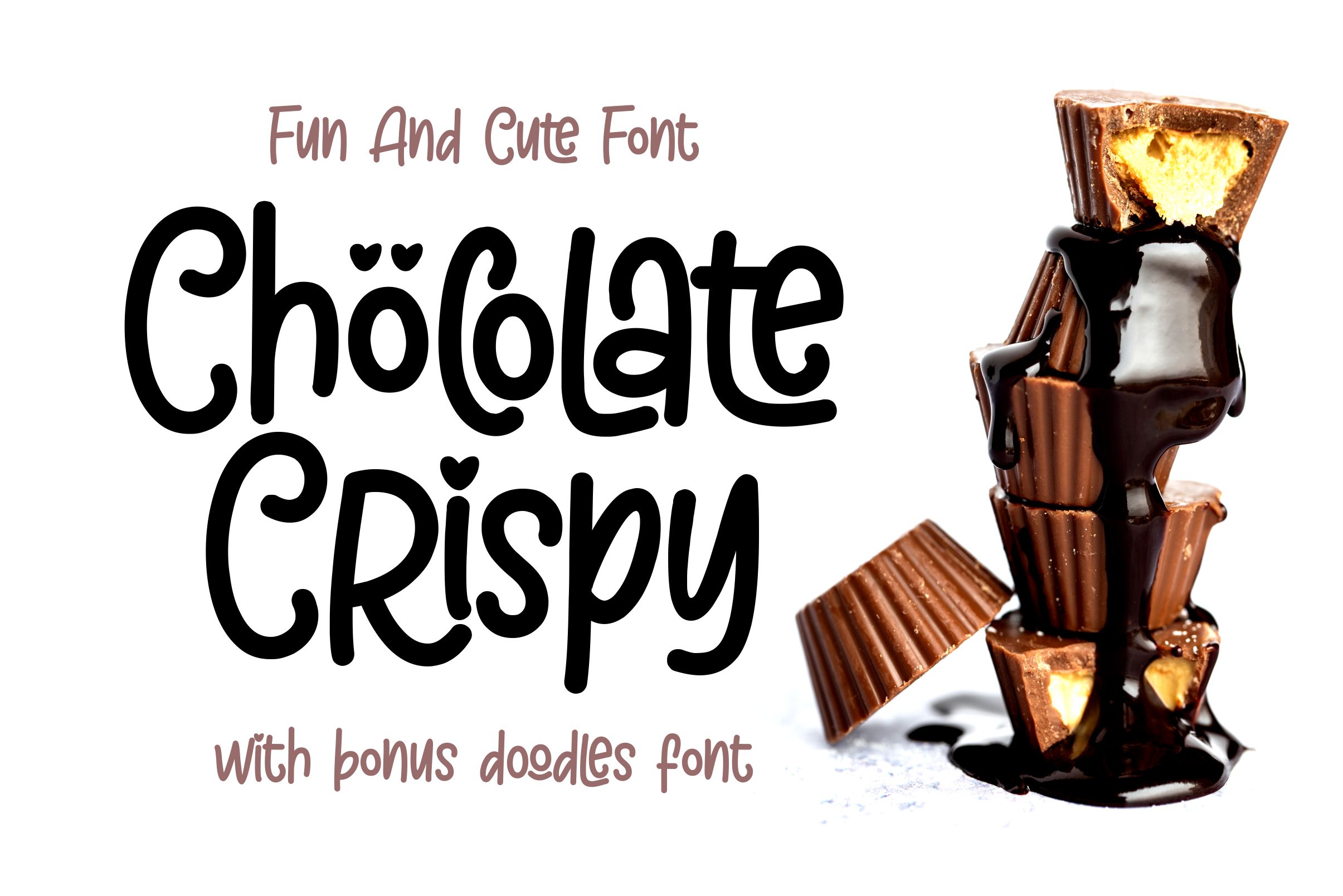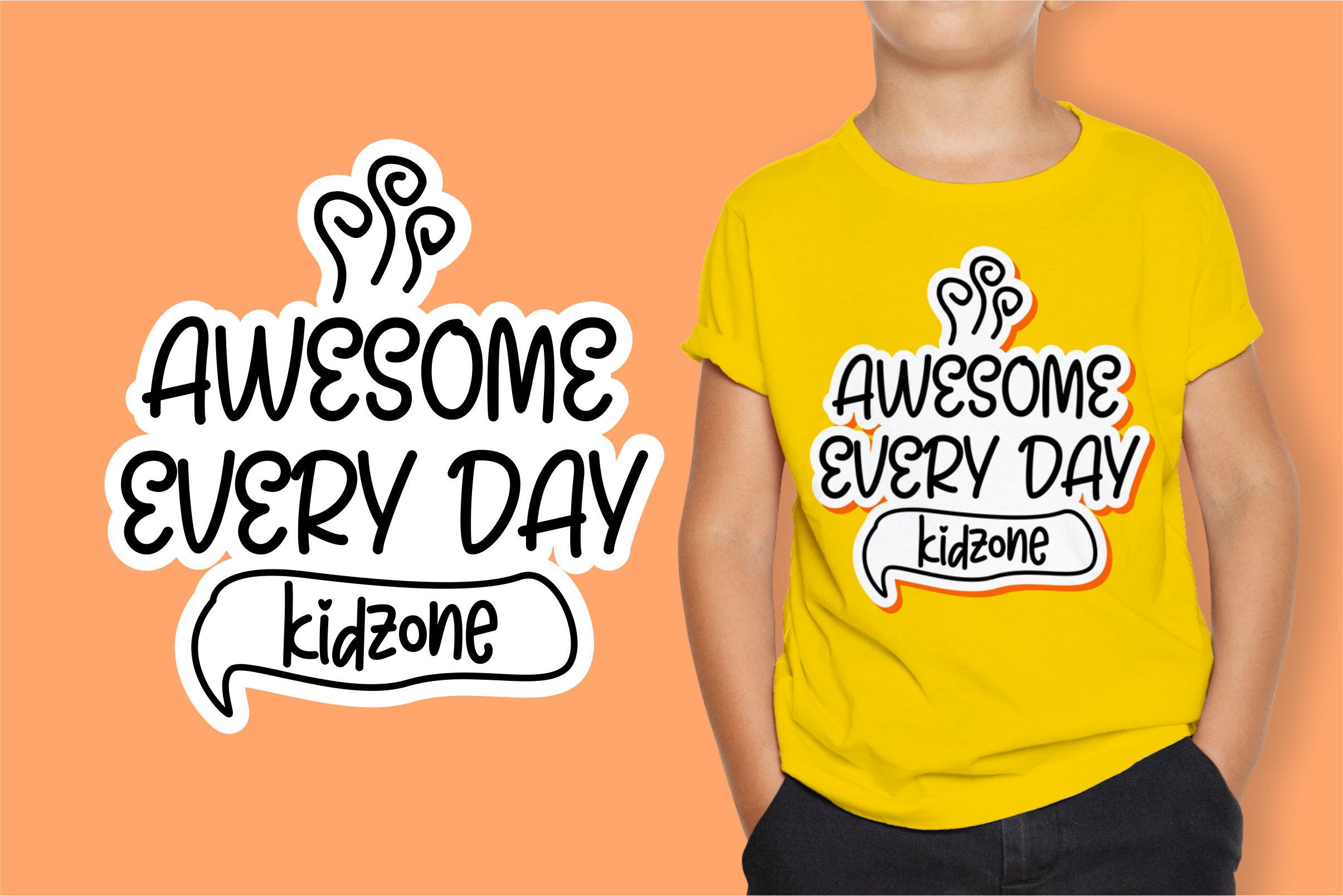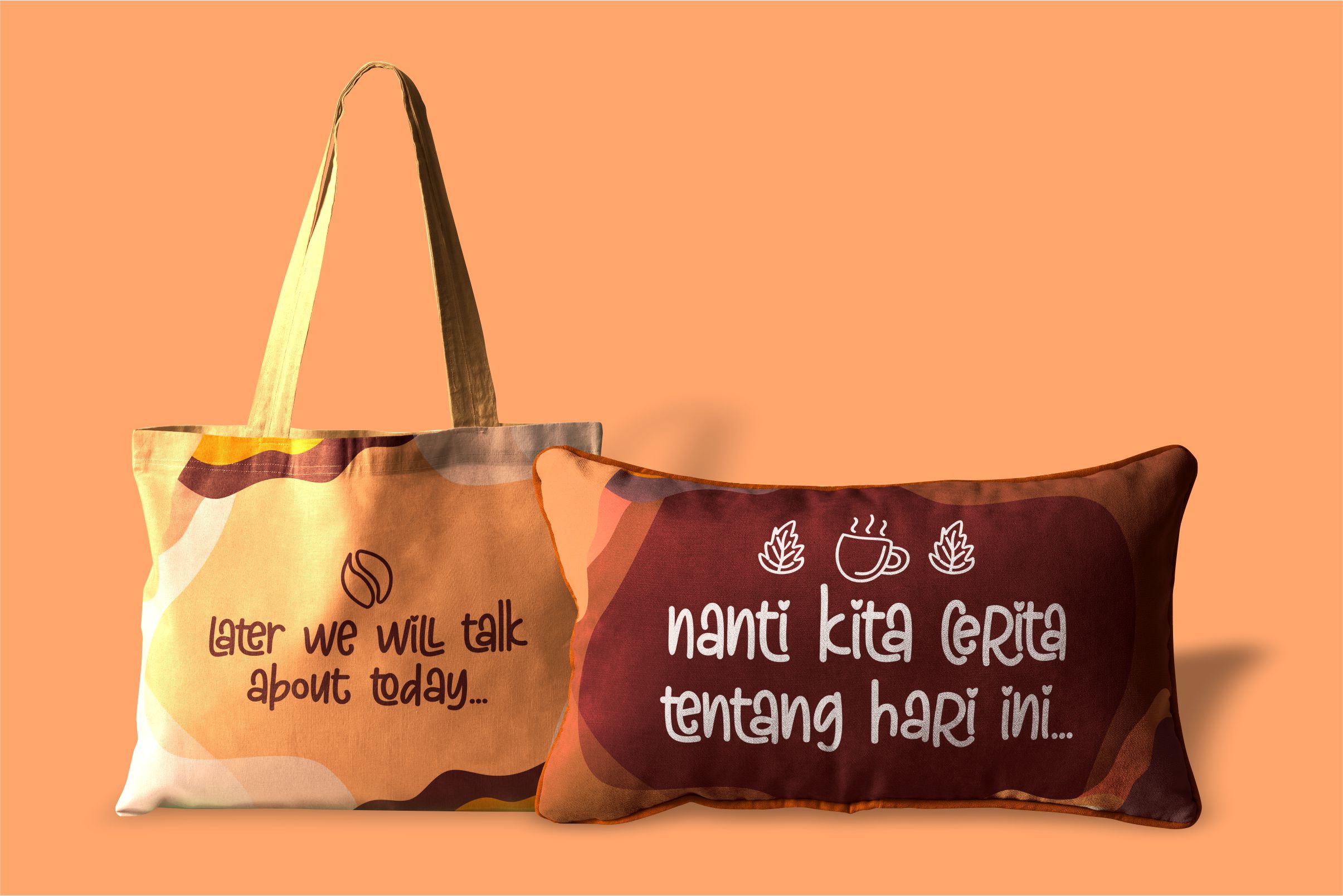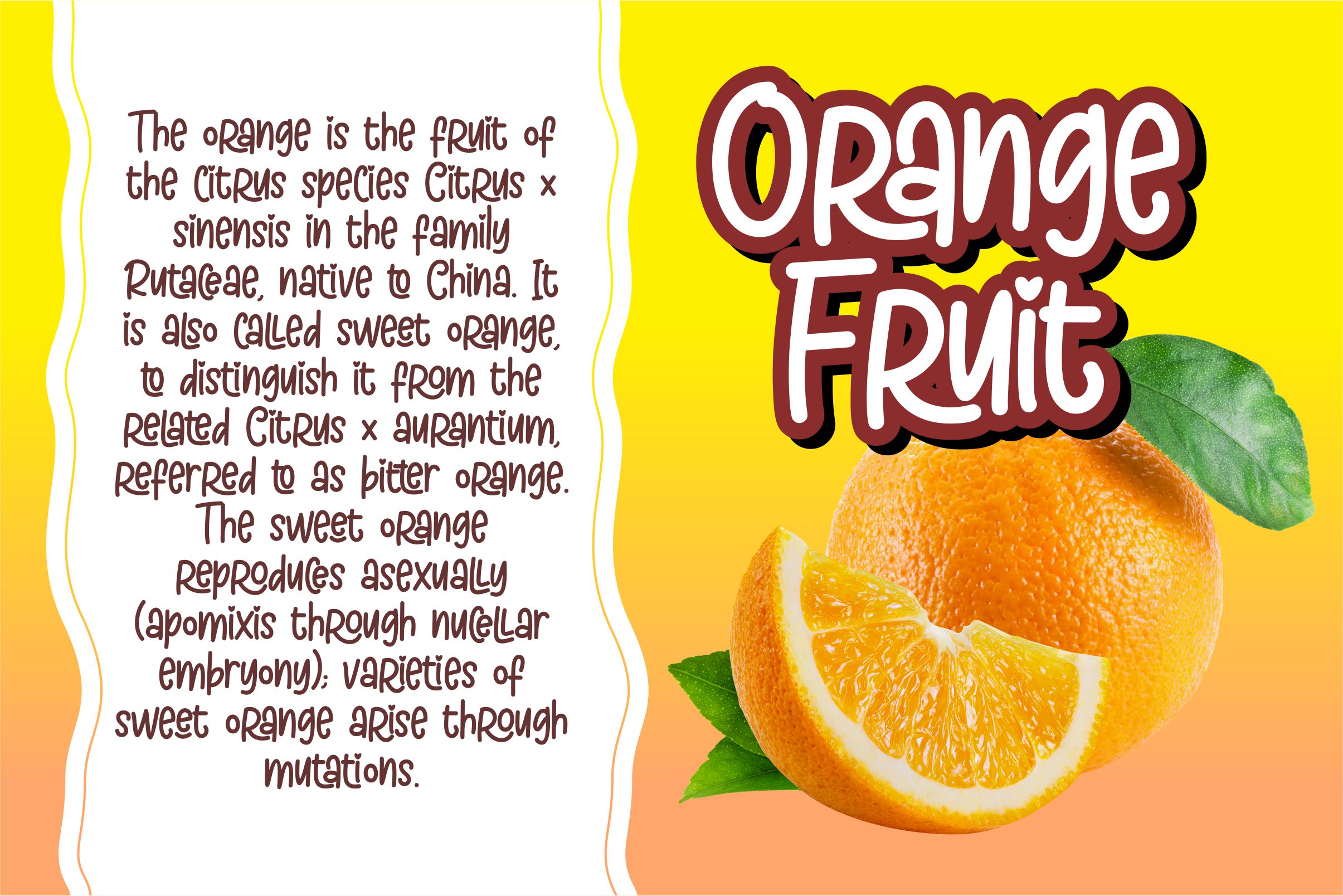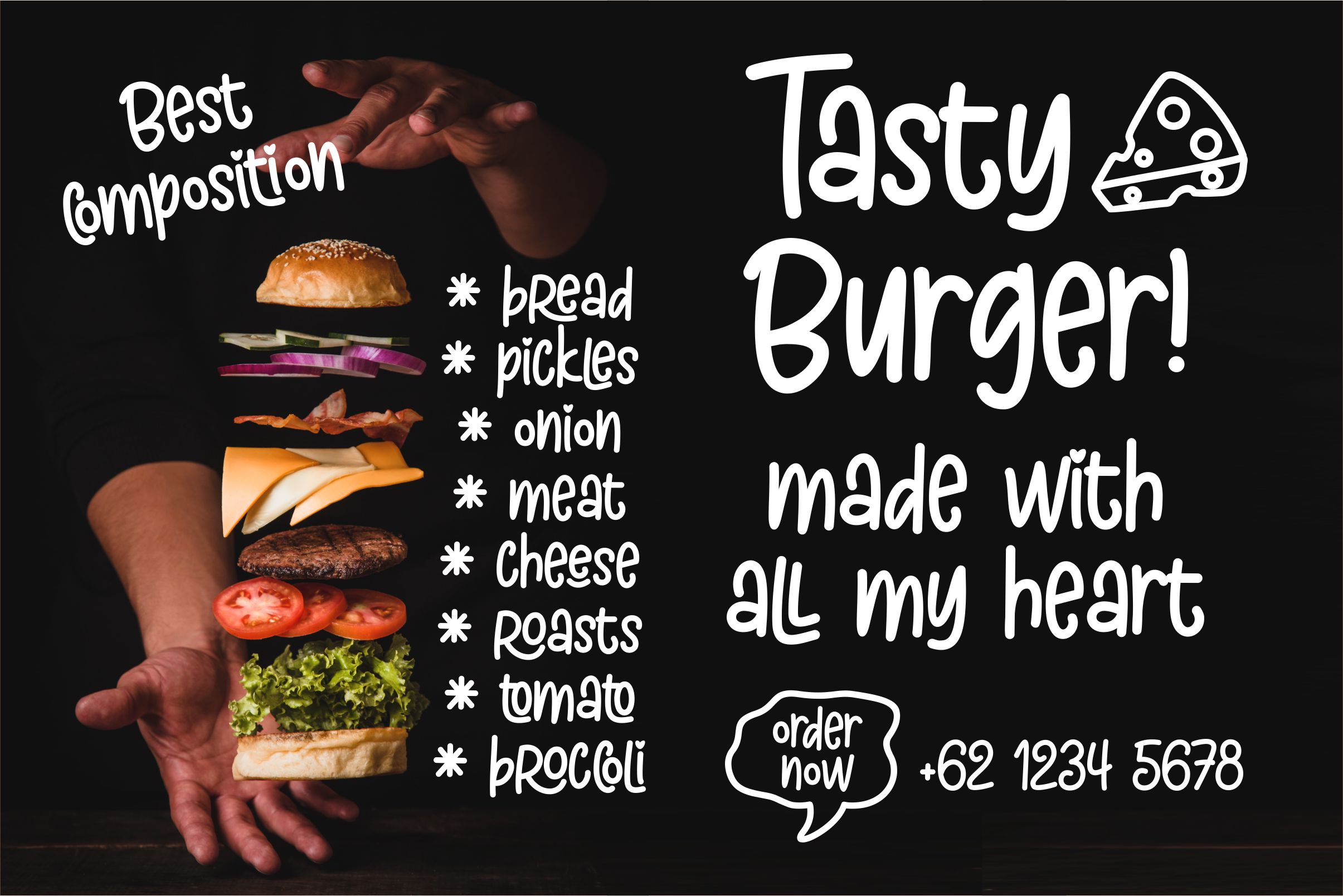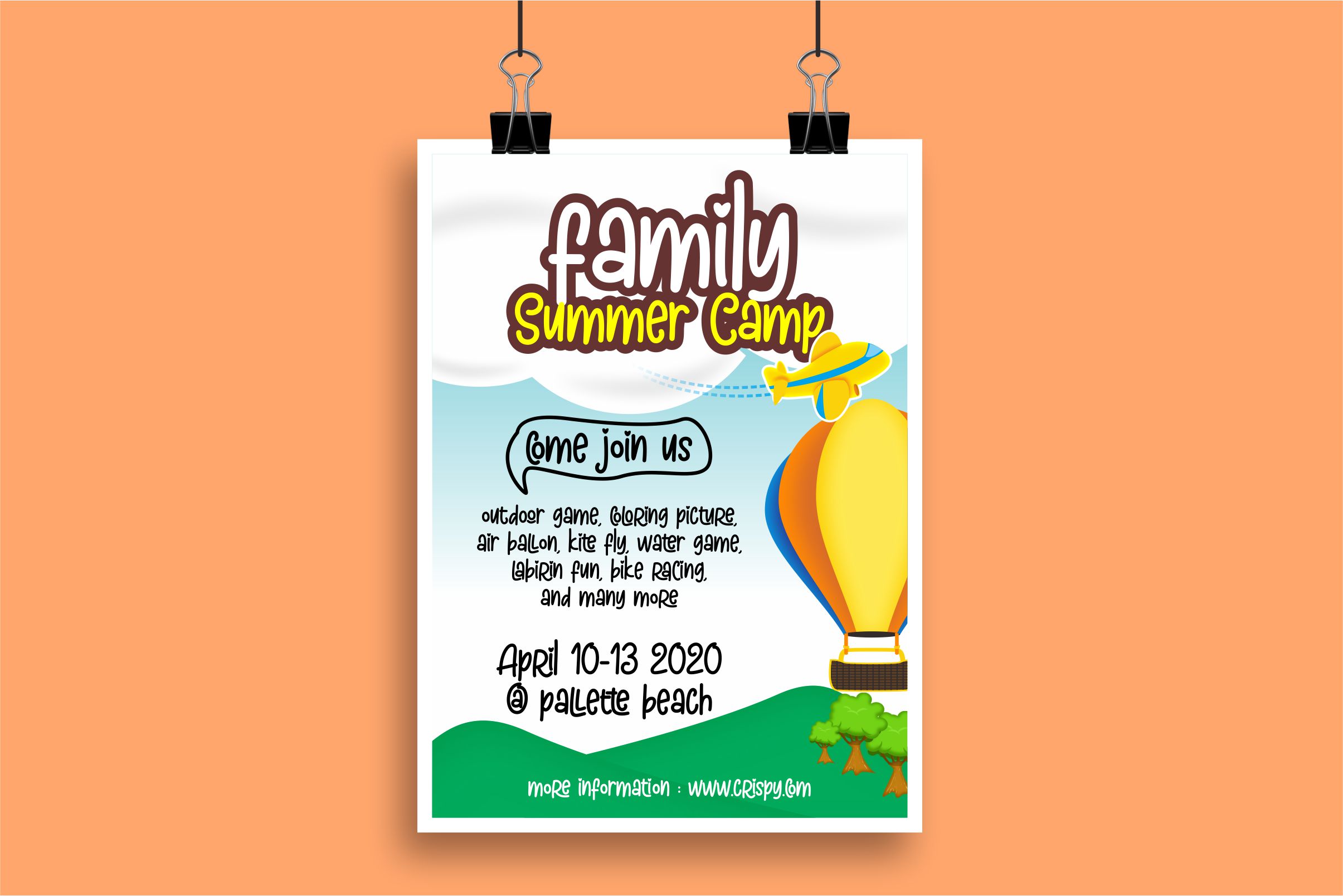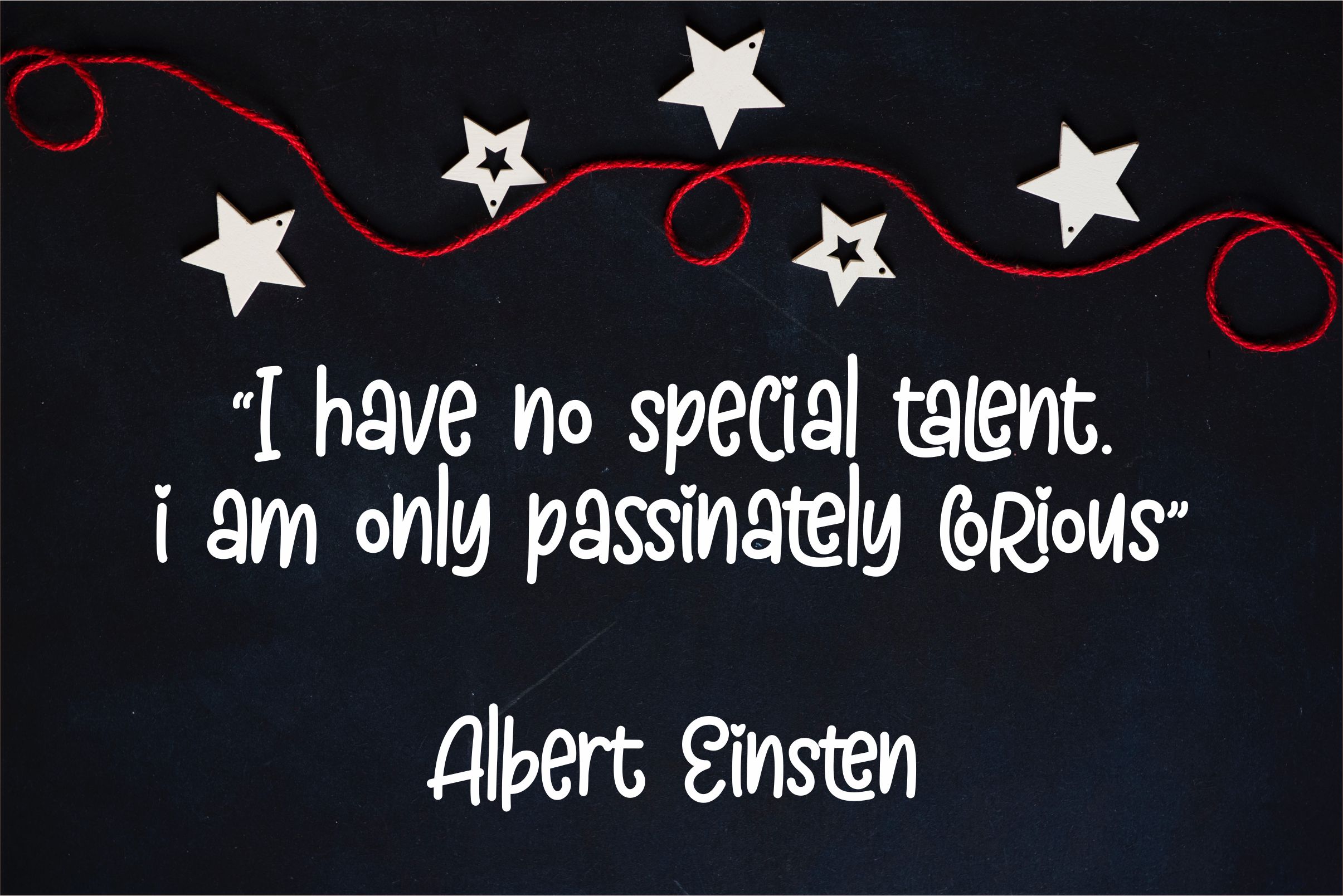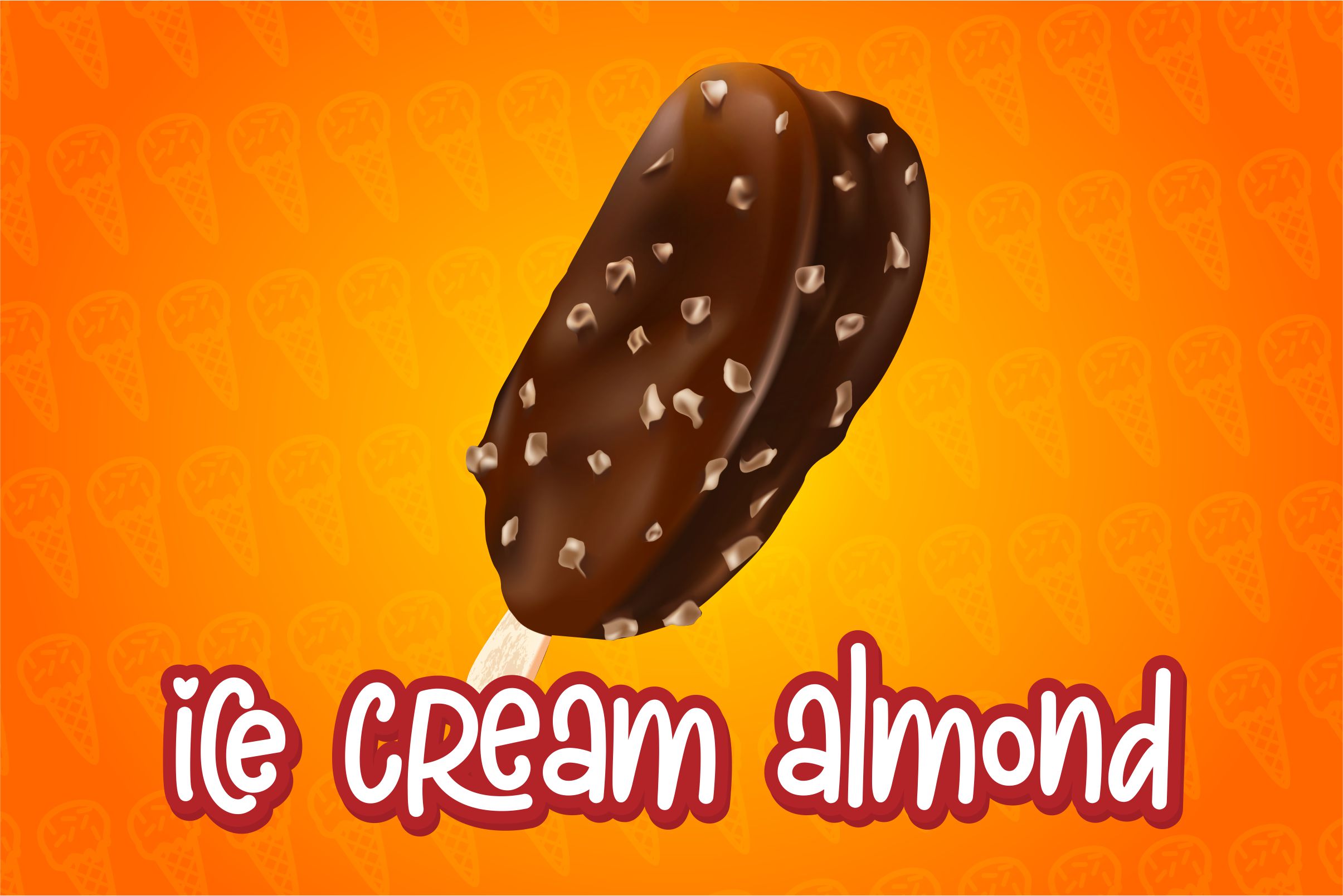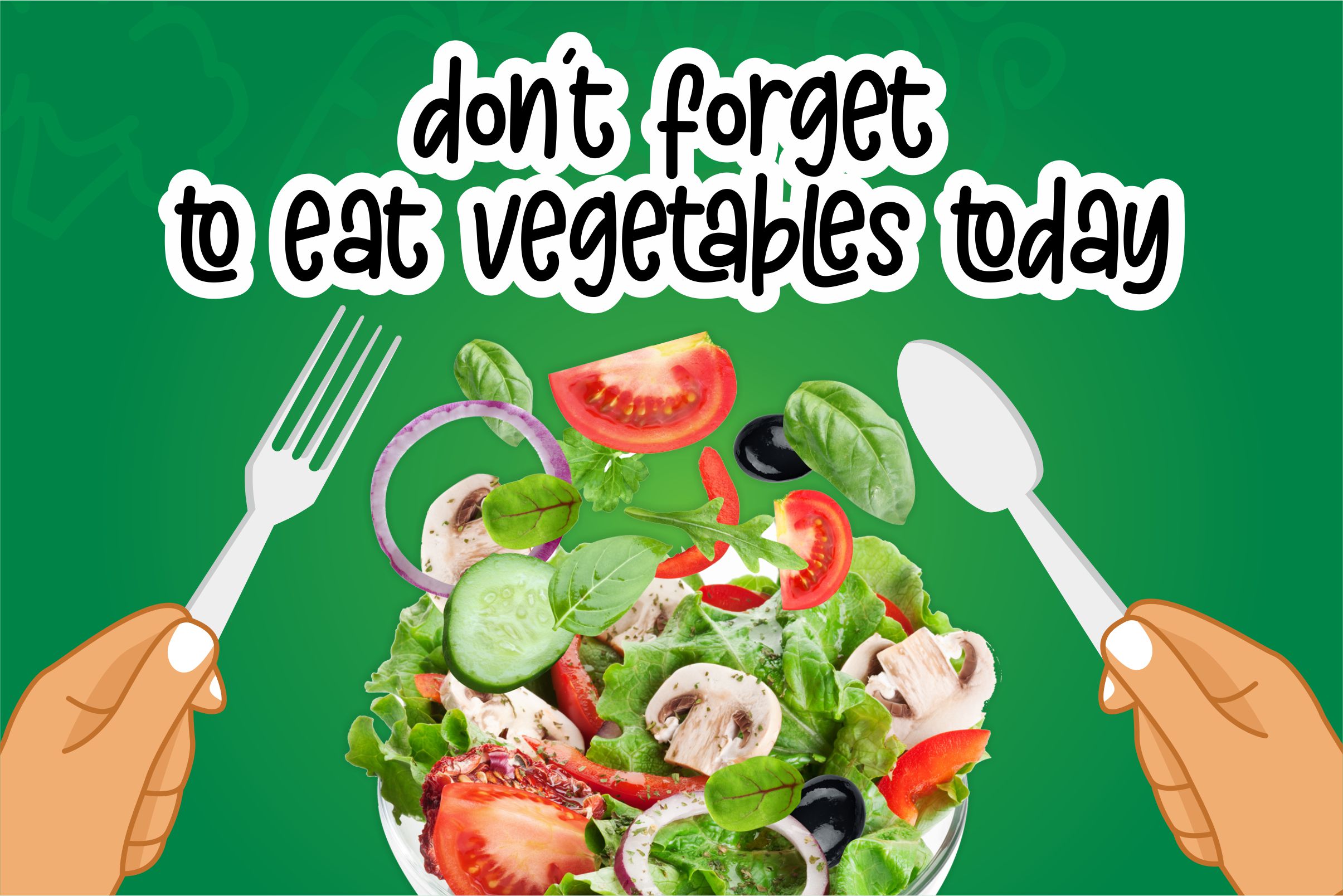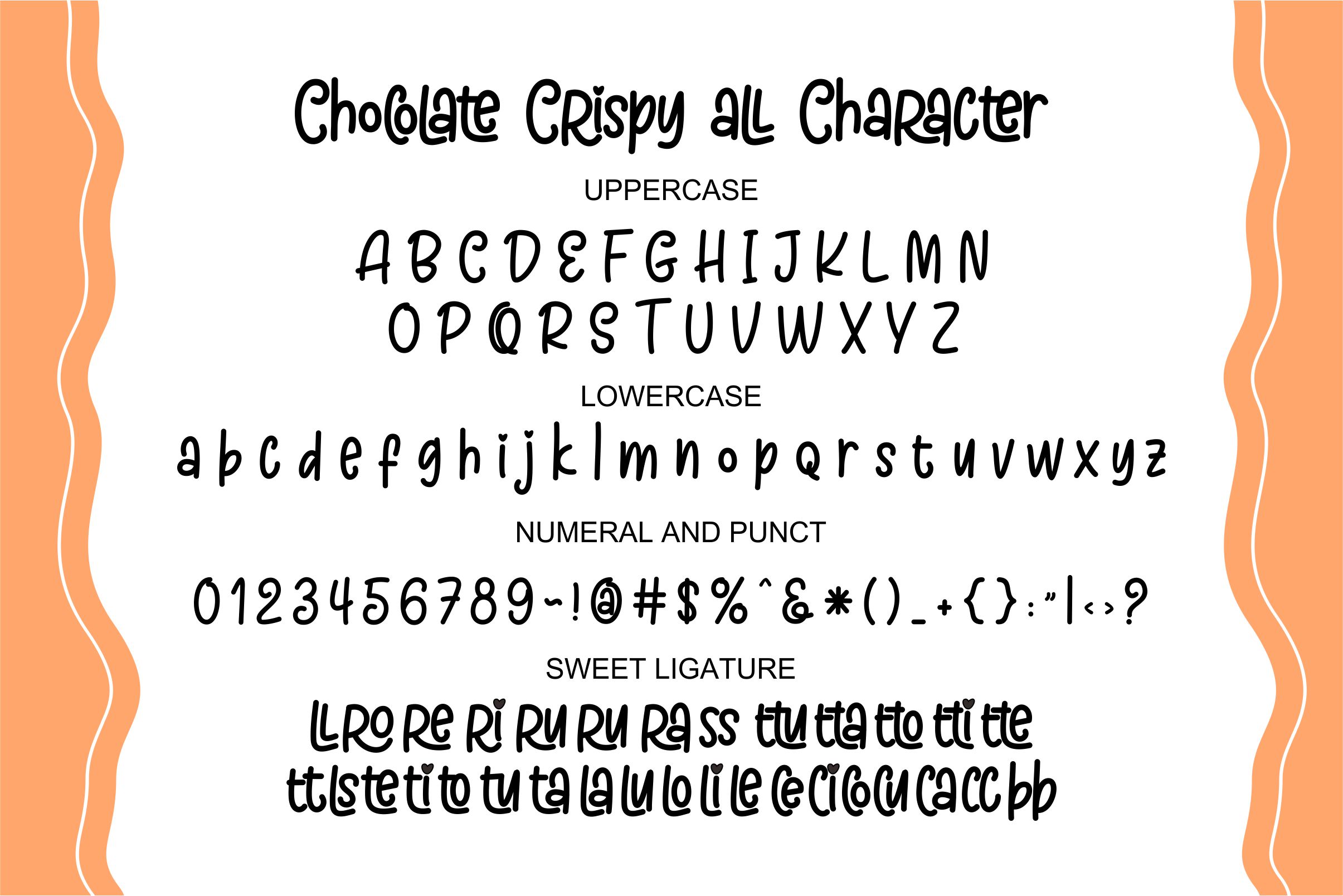
Chocolate Crispy is a cute and playful handwritten font designed to bring warmth and charm to your creative projects. With its soft, rounded shapes and organic strokes, it creates a friendly and approachable feel that instantly captures attention.
Perfect for kids-themed designs, branding, social media, packaging, and creative layouts, this font adds a touch of fun and personality to any work. Its natural handwritten style makes every word feel lively, cheerful, and full of character.